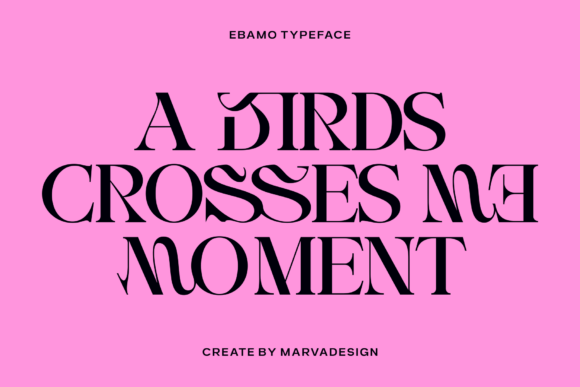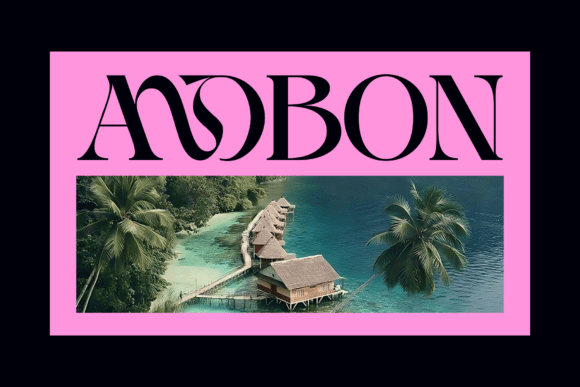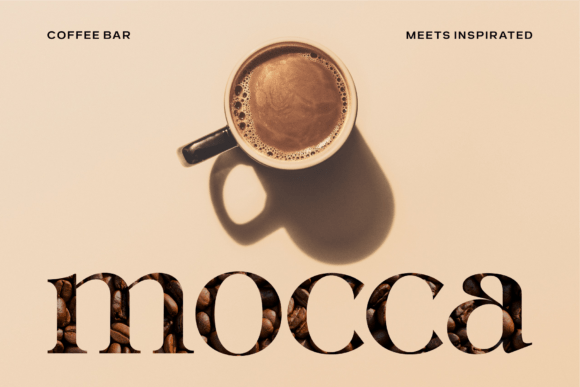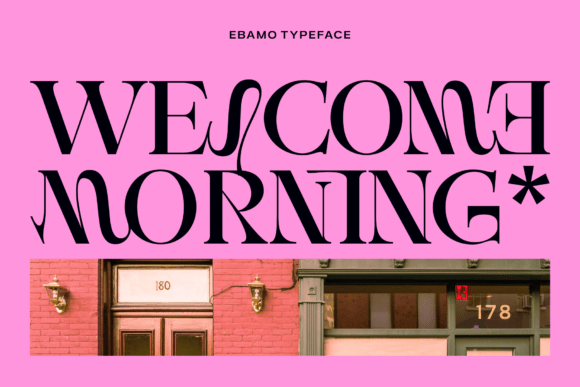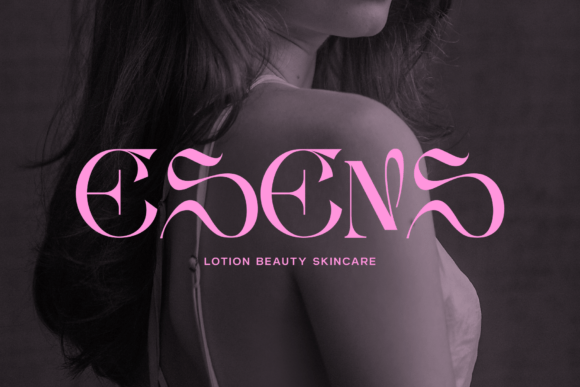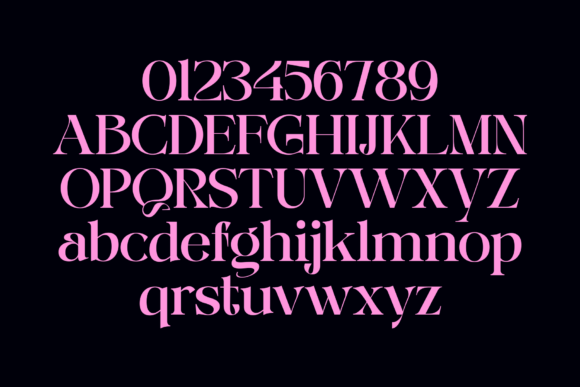
Introducing Ebamo Font: The Ultimate Display Serif for Luxury and Creativity
In the world of typography, a font can make all the difference in elevating a design project from ordinary to extraordinary. For designers and crafters seeking a typeface that exudes elegance, sophistication, and avant-garde flair, look no further than Ebamo Font. This bold and expressive display serif font is specifically designed to make a statement, blending high-end luxury with creative freedom.
The Distinctive Characteristics of Ebamo Font
Ebamo Font is characterized by its striking letterforms, which feature a high contrast between thick and thin strokes. This contrast creates a sense of movement and dynamism, drawing the viewer’s eye through the text. The smooth curves and sharp edges of the font add to its sophisticated and elegant feel, making it perfect for high-end branding, fashion editorials, packaging, and modern design projects.
Unique Alternates and Ligatures
What sets Ebamo Font apart from other display serif typefaces is its unique alternates and ligatures. These artistic flourishes add a rhythmic quality to the text, transforming every word into a visual statement. The alternates and ligatures in Ebamo Font provide designers with a wide range of creative possibilities, allowing them to customize their designs and add a touch of personality to their work.
Perfect for Luxury and Creative Projects
Ebamo Font is specifically designed for designers and crafters working on high-end projects that require a touch of luxury and sophistication. Its elegant and avant-garde design makes it perfect for:
- High-end branding: Create a lasting impression with Ebamo Font’s bold and expressive letterforms.
- Fashion editorials: Add a touch of glamour and sophistication to your fashion editorials with Ebamo Font’s elegant and refined design.
- Packaging: Make your packaging designs stand out with Ebamo Font’s unique alternates and ligatures.
- Modern design projects: Bring a touch of luxury and creativity to your modern design projects with Ebamo Font’s bold and expressive typeface.
PUA-Encoded for Effortless Customization
The Ebamo font is PUA-encoded, ensuring effortless access to all glyphs, swashes, and alternate characters. This means that designers can easily customize their creations without having to navigate complex font menus or rely on external design software. With Ebamo Font, you can focus on the creative process, experimenting with different design combinations and exploring new ideas.
Key Features of Ebamo Font
- Bold and expressive display serif typeface
- High contrast between thick and thin strokes
- Smooth curves and sharp edges
- Unique alternates and ligatures
- PUA-encoded for effortless access to glyphs, swashes, and alternate characters
- Perfect for high-end branding, fashion editorials, packaging, and modern design projects
Ebamo Font is a game-changing display serif typeface that offers designers and crafters a unique combination of elegance, sophistication, and creative freedom. Its bold and expressive letterforms, unique alternates and ligatures, and PUA-encoded design make it the perfect choice for high-end projects that require a touch of luxury and creativity. Whether you’re working on branding, fashion editorials, packaging, or modern design projects, Ebamo Font is the ultimate tool for elevating your designs and making a lasting impression.